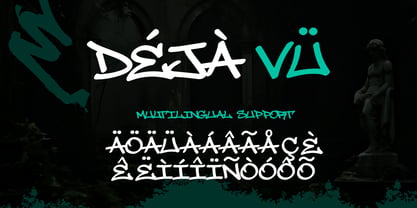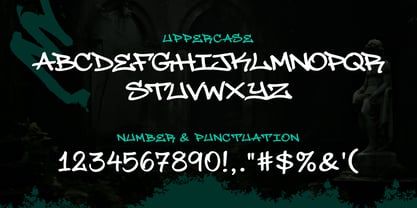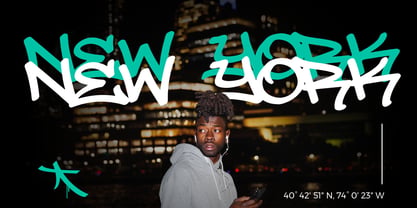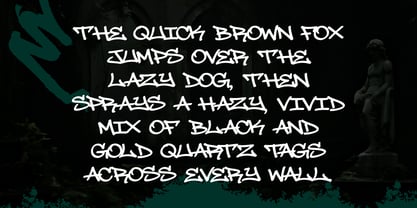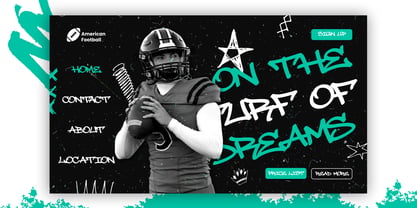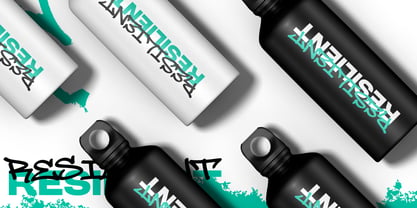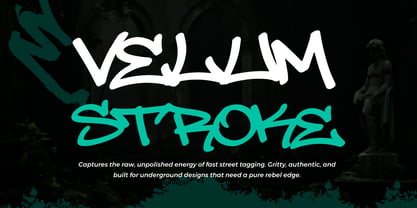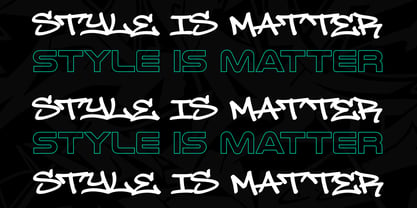
Velum Stroke
by Sipanji21
The Velum Stroke Font Family was designed by Sipanji and published by Sipanji21. Velum Stroke contains 1 styles. More about this family
Velum Stroke is a raw handwritten graffiti tag typeface that captures the unfiltered energy of fast street writing. Inspired by real marker tags, underground culture, and spontaneous urban expression, this typeface delivers an authentic street feel without artificial polish. Every stroke feels immediate, personal, and alive — just like graffiti written in motion. Designed for designers who want honesty in their typography, Velum Stroke embraces imperfection as its strongest character. The letterforms are bold, fluid, and slightly irregular, reflecting the natural rhythm of hand-drawn tagging. This makes it ideal for projects that need attitude, edge, and emotional impact rather than clean corporate perfection. Velum Stroke includes a complete set of uppercase and lowercase letters, numbers, and punctuation, ensuring flexibility across many design needs. With multilingual support, it works smoothly for international projects while keeping its gritty street DNA intact. Whether used for logos, streetwear branding, album artwork, posters, editorial headlines, or social media visuals, Velum Stroke commands attention instantly. This typeface is built for underground designers, music creators, apparel brands, and visual artists who want their work to feel raw, rebellious, and unapologetically urban. Velum Stroke performs especially well in hip hop visuals, skate culture branding, graffiti-inspired merchandise, and bold experimental layouts. If your design needs a font that feels written by hand in real time — fast, expressive, and fearless — Velum Stroke is the perfect choice.
Designers: Sipanji
Foundry: Sipanji21